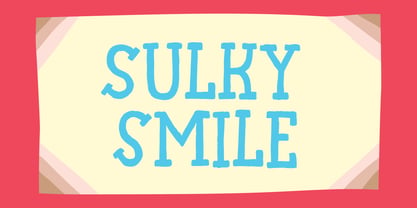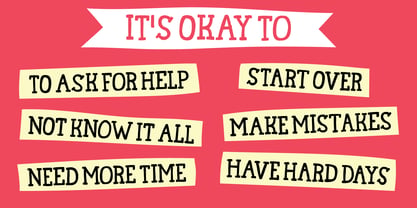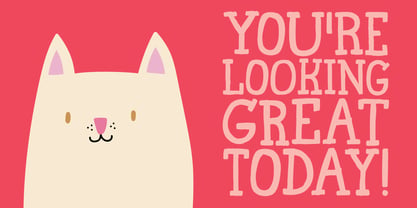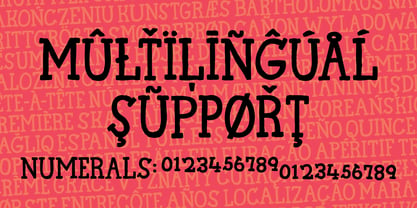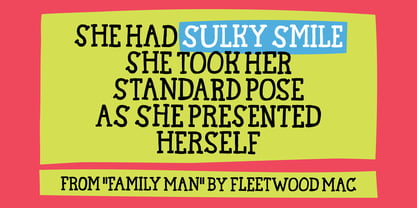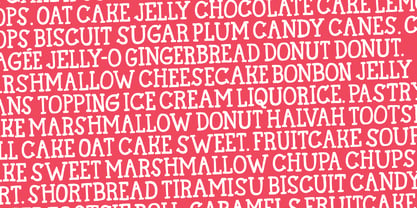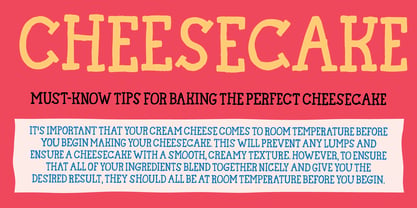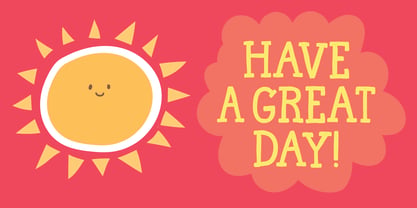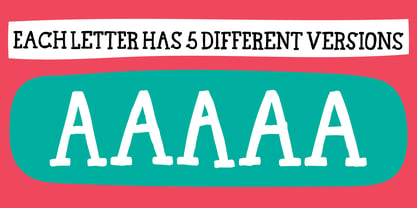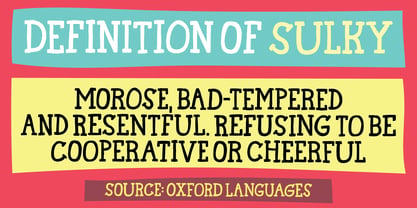
Sulky Smile
by Bogstav
The Sulky Smile Font Family was designed by Jakob Fischer and published by Bogstav. Sulky Smile contains 2 styles and family package options. More about this family
Sulky Smile is a line from one of my favorite Fleetwood Mac songs - Family man.
However, the definition of “sulky” doesn’t quite fit the font. Except for a description like “refusing to be cooperative” rings a bell - due to the fonts resistance to play by the classic rules of serif fonts.